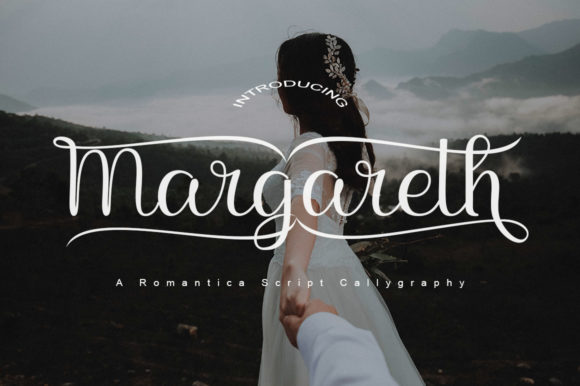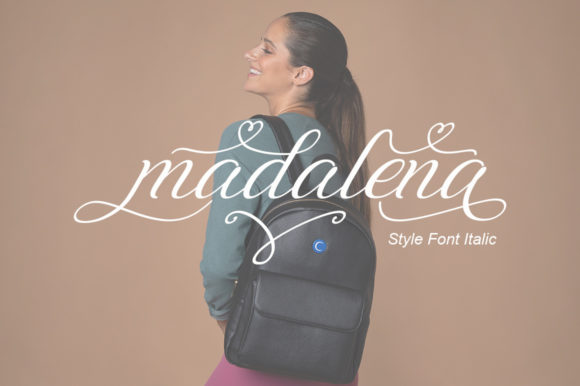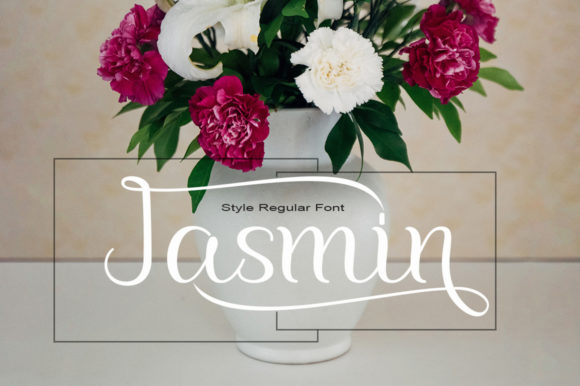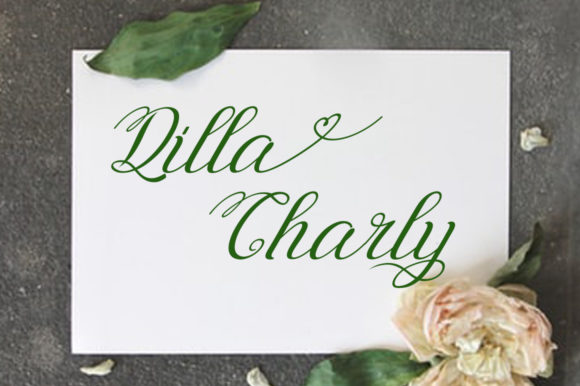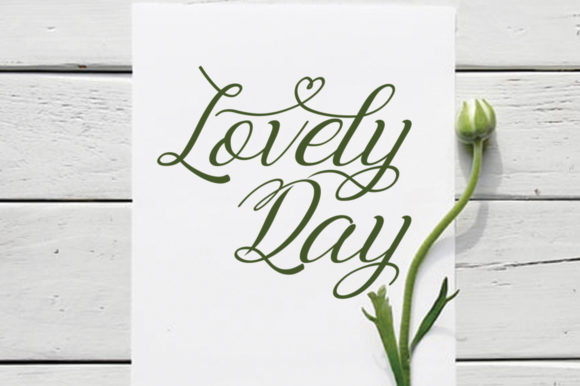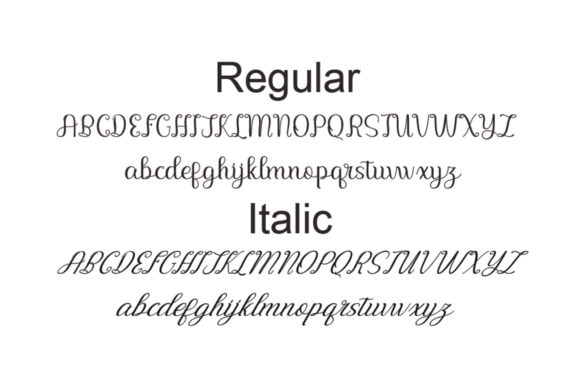
HomeScript FontsMargareth Font Script Fonts Margareth Font FacebookXPinterestWhatsApp Margareth Font Poster 2 Margareth Font Poster 3 Margareth Font Poster 4 Margareth Font Poster 5 Margareth Font Poster 6 About Margareth Font Margareth is a sweet and charming script with incredibly romantic letters. Fall in love with its rich swashes! DOWNLOAD ON CREATIVE FABRICAThis font is sold and delivered by Creative Fabrica. Font Canyon may earn a commission if you buy through this link. People also explored Pregnancy and Baby Font Emerlads Font Tea Bag Font Palm Fortress Font Be Happy Font Lepraqun Font Summertime Font Redlineryh Font Ertigaro Font 355 0 TagsMargareth Font Previous articleAngelica FontNext articleUmbrella Script Font LEAVE A REPLY Cancel reply Comment: Please enter your comment! Name:* Please enter your name here Email:* You have entered an incorrect email address! Please enter your email address here Website: Save my name, email, and website in this browser for the next time I comment. Personal Use Free Sheiloria Personal Use Free Read more about this font Unsteady Overseer Personal Use Free Read more about this font Monogram Veg Personal Use Free Read more about this font Sunflower Personal Use Free Read more about this font BLOG Where to Buy American Fonts Online in 2024 Where to Buy American Fonts Online: The Ultimate Guide for 2024 Looking for the perfect American font to elevate your design projects? You're in the... Using Fonts in Digital Marketing: Tips to Strengthen Your Brand Identity Transform Your Website: Elevate Your Typography with 7 Best Web Font Generators The 10 Best Handwriting Fonts to Add Personality to Your Designs